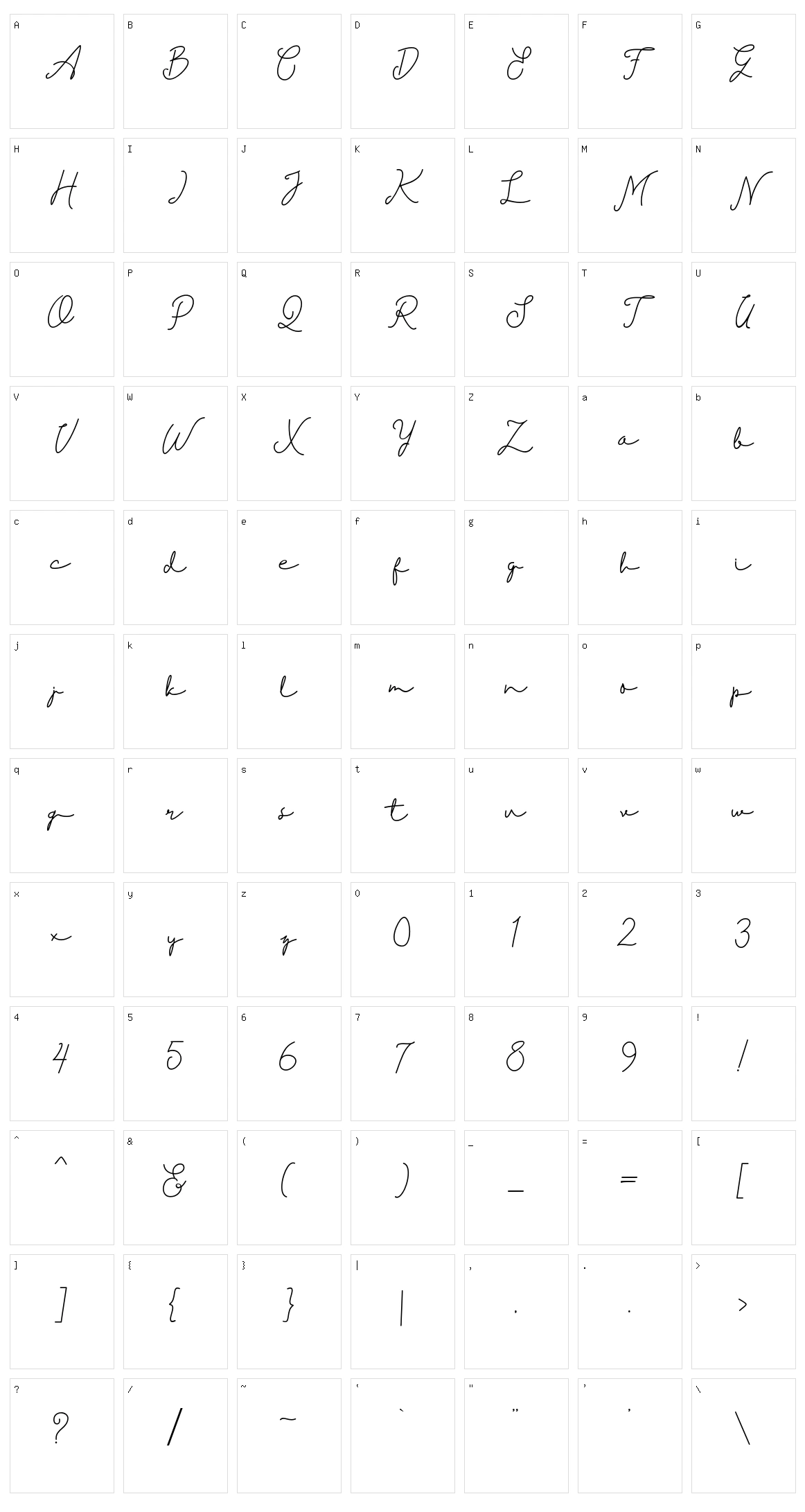
Eintaint Demo Version font is a handwritten signature script with a natural & stylish flow.
Eintaint font of scripts is perfect for personal branding. Eintaint is perfect for branding
projects, logo, wedding designs, social media posts, advertisements, product packaging, product
designs, label, photography, watermark, invitation, and stationery.